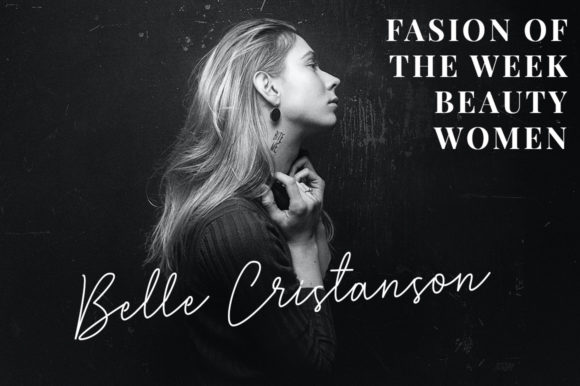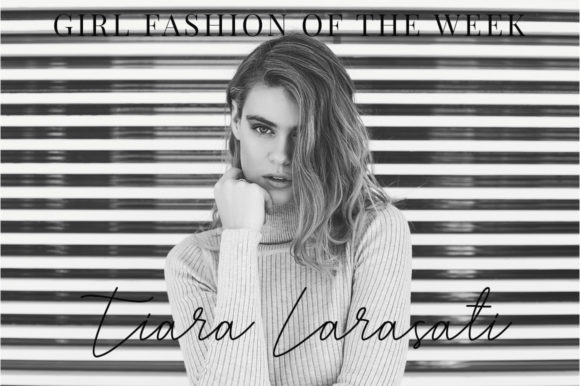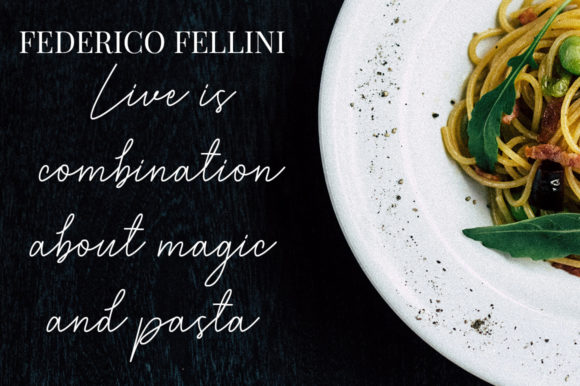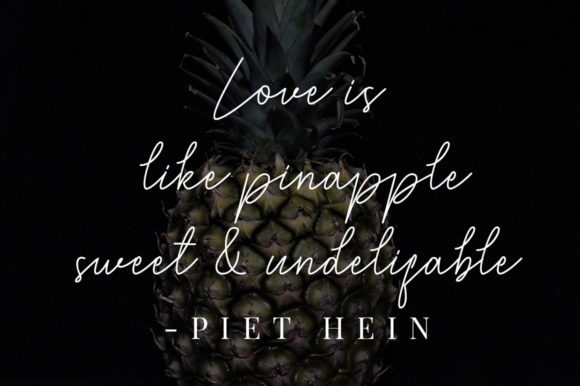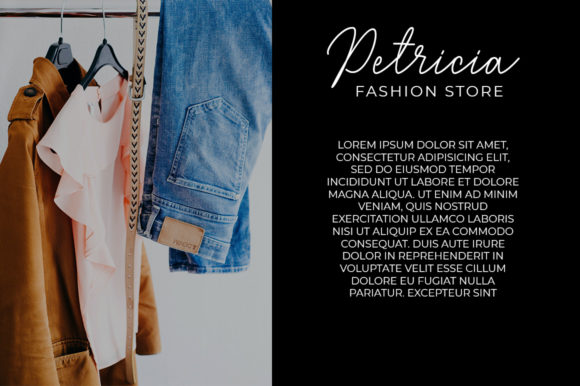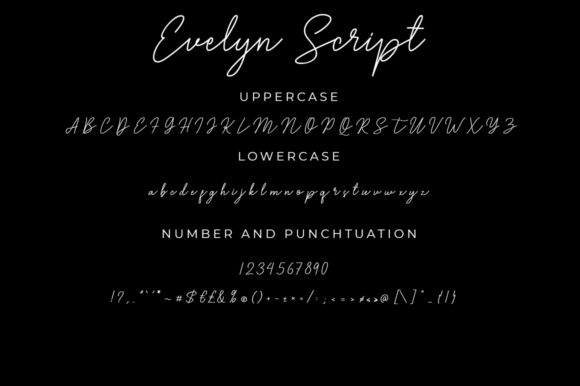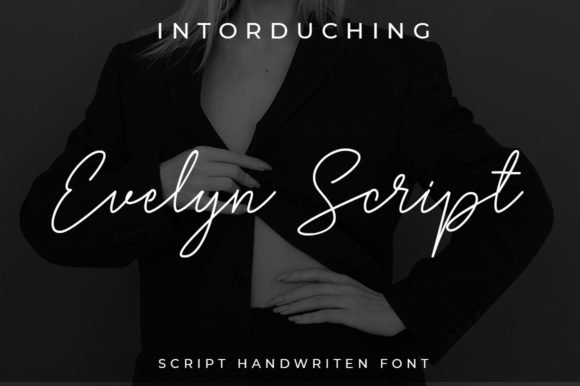
Unlock the Elegance of Your Designs with Evelyn Script Font
Have you ever found yourself lost in the creative process, pouring your heart and soul into a project, only to feel like something’s missing? That’s when you stumble upon the perfect font – one that elevates your work to new heights and leaves a lasting impression. For designers seeking to infuse their projects with a touch of sophistication, the Evelyn Script Font is a game-changer.
This elegant, thin, and smooth handwritten font masterfully balances classic calligraphic influences with a modern, fresh feel. Whether you’re crafting wedding invitations, designing logos, or creating digital content, the Evelyn Script Font is the perfect tool to bring your vision to life. Its versatility and timeless charm make it a valuable addition to any designer’s toolkit, helping to take their projects to the highest levels.
Evelyn Script Font Key Features
• Unique Characteristics: Features a beautiful, handwritten script style with elegant connections and subtle flair, perfect for creating a personal and creative atmosphere in designs.
• Font Width: A medium-width font, suitable for body text, headings, and titles, adding a touch of sophistication to any design.
Evelyn Script Font Review
Overall, I really enjoy working with the Evelyn Script font. It’s got a unique, elegant charm that’s perfect for adding a touch of sophistication to any design. ✨
• Highly legible: Despite its cursive design, Evelyn Script is surprisingly easy to read, even at smaller font sizes.
• Wide compatibility: I’ve used Evelyn Script in various design projects, and it works seamlessly across different platforms and devices.
• Stylish variations: The font comes with a range of stylish variations, from formal to casual, which gives designers plenty of creative freedom.
• Not ideal for body text: While Evelyn Script is great for headings and titles, it may not be the best choice for large blocks of body text due to its cursive nature.
• May require adjustments: Depending on the project, you may need to adjust the font size, line spacing, or letter spacing to get the best results.
Overall, I think Evelyn Script is a fantastic font for designers who want to add a touch of elegance to their work. While it may have some limitations, its unique charm and versatility make it a valuable addition to any design toolkit.
The Evelyn Script Font is perfect for:
• Wedding invitations and stationery
• Branding and marketing materials
• Editorial and literary works
• Artistic and creative projects
To get the most out of the Evelyn Script Font, try the following:
• Pair it with a bold, sans-serif font for contrast.
• Alternatives to Evelyn Script Font
Evelyn Script Font is a beautiful, elegant script font that adds a touch of sophistication to designs. However, it may not be the right fit for every project. Here are a few alternatives:
Great Vibes is a modern script font with a relaxed, casual feel. It’s perfect for designs that require a friendly, approachable tone. Unlike Evelyn Script Font, Great Vibes has a more fluid, cursive feel, making it ideal for headings and titles. It also has a wider range of weights and styles, offering more flexibility for designers.
Alex Brush is a elegant script font with a classic, timeless feel. It’s suitable for designs that require a touch of sophistication and refinement. Compared to Evelyn Script Font, Alex Brush has a more refined, precise feel, making it ideal for formal and professional designs. It also has a more subtle, understated look, which can be beneficial for designs where the focus is on the content rather than the font itself.